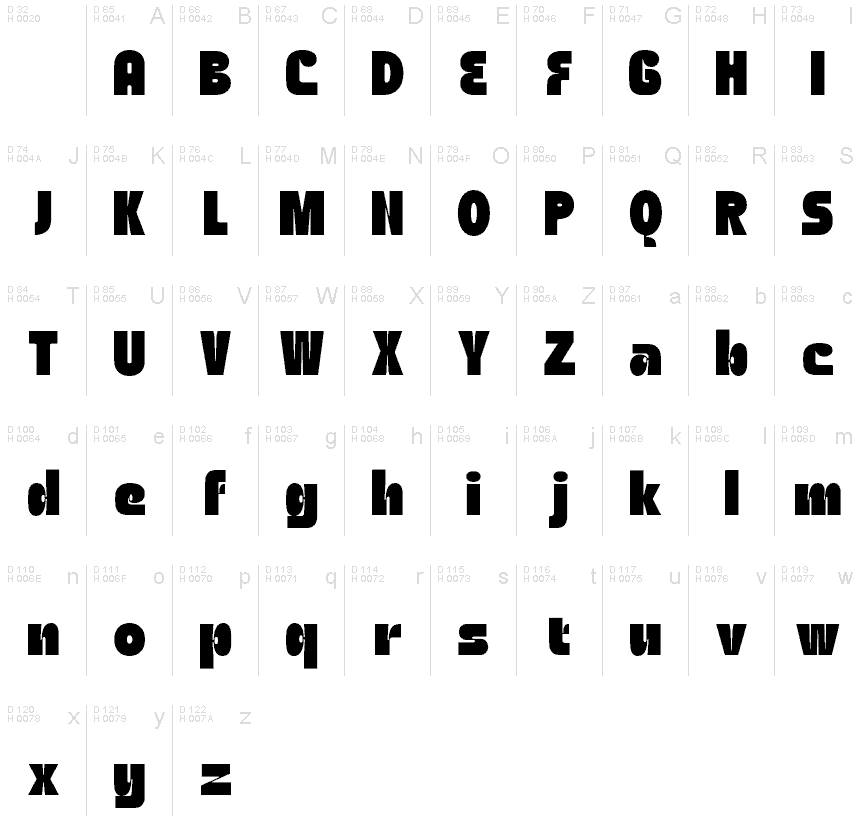
CS Company Demo Regular
CS Company font by Craft Supply Co. is a bold sans serif font with a retro-inspired style whose geometric characters were crafted with straight streamlined forms presenting a modern aesthetic. This typeface brings its own expressive impact into every character you add to your project, allowing you to experience the fascinating perception of this wonderful free font.
Logos, branding designs, widgets and apps design, titles in books and magazines are always options on the table when it comes to CS Company. The clean font can also be used for posters, flyers and brochures, as well as invitations and greeting cards for all occasions.